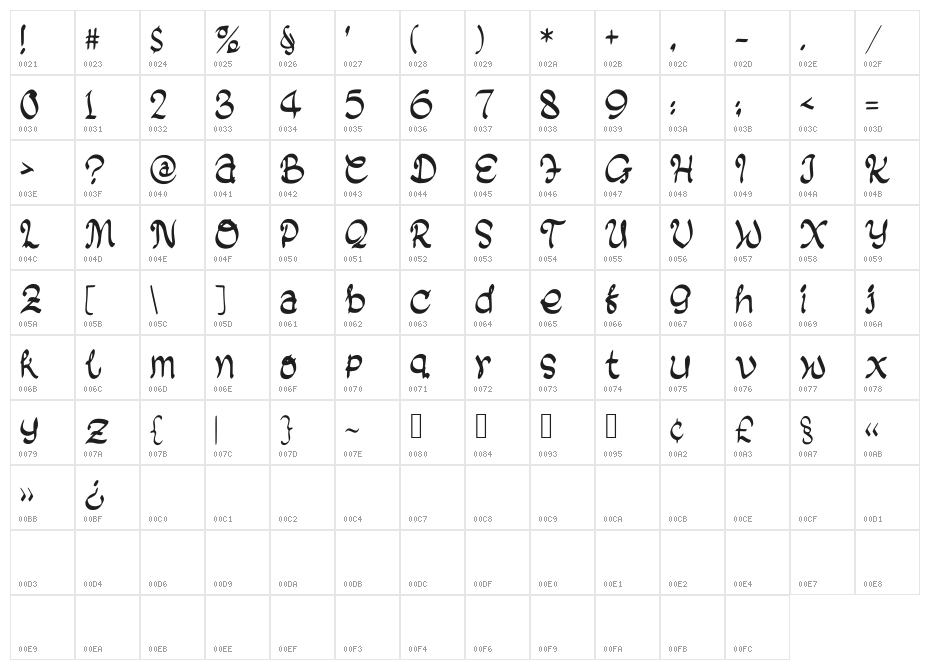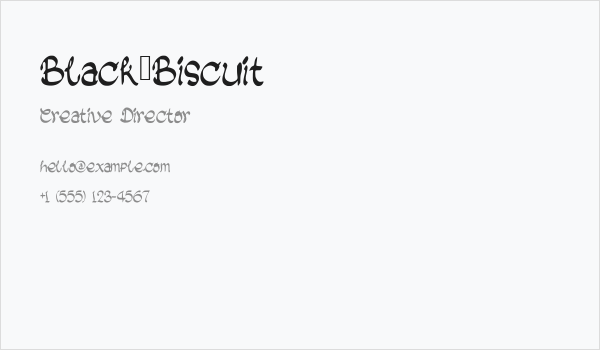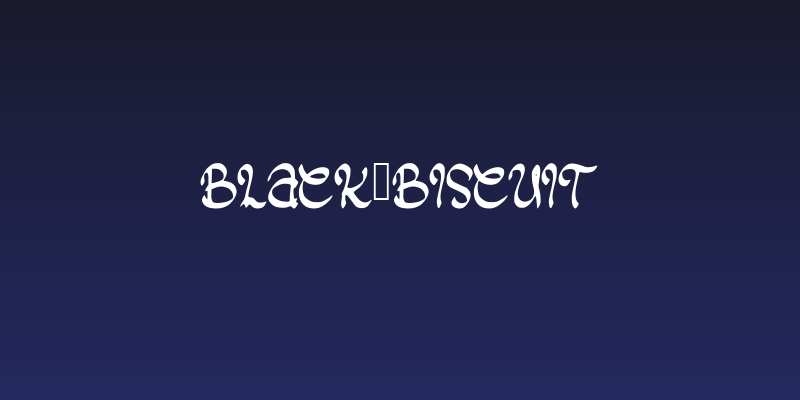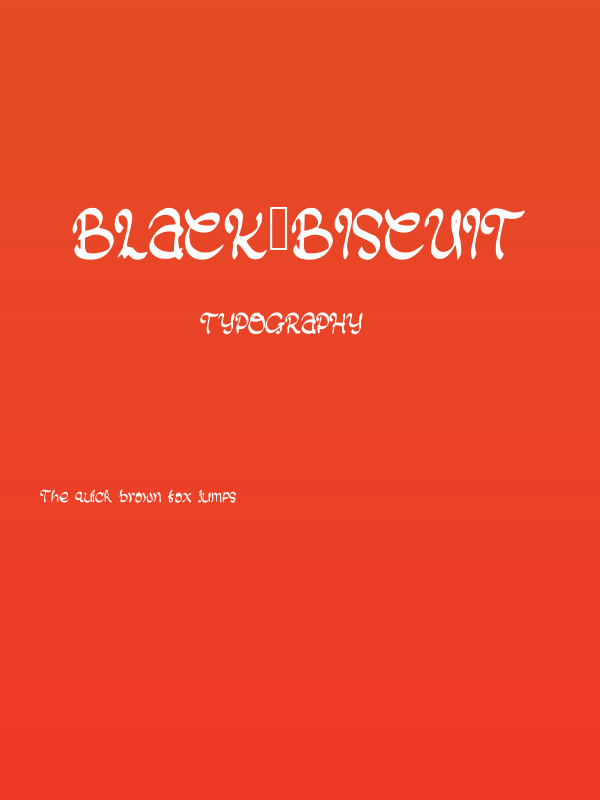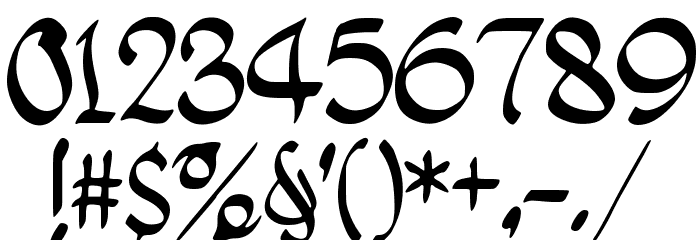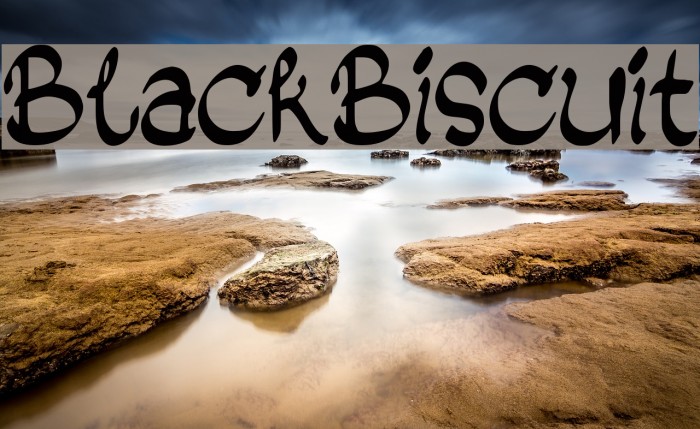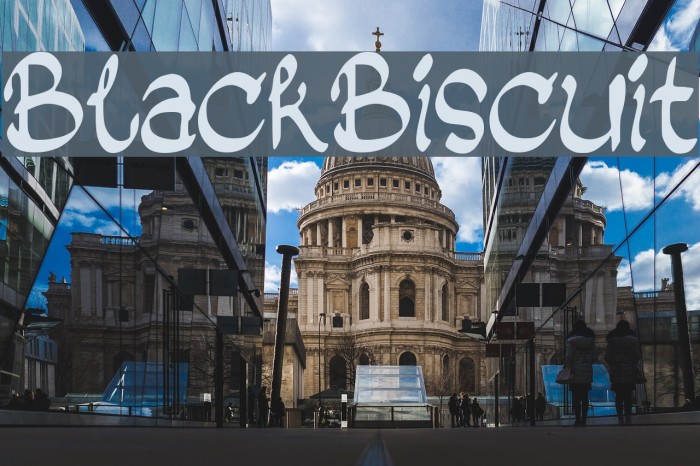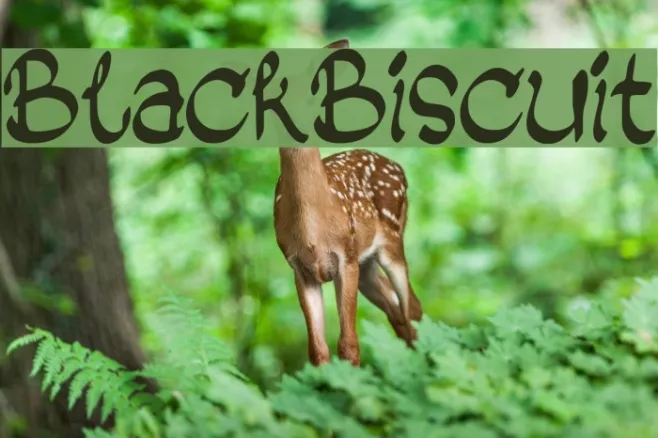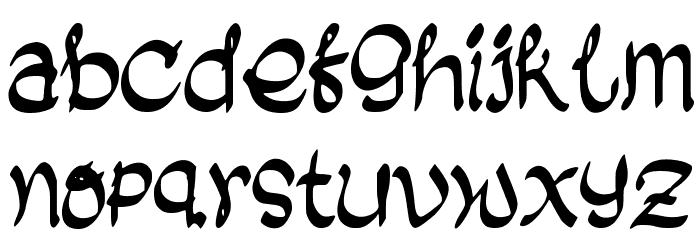
Black_Biscuit Font
Black_Biscuit Description
This font features a bold and dynamic script style with a unique blend of curves and sharp edges. The uppercase letters exhibit a strong presence with their thick strokes and artistic flair, while the lowercase letters maintain a consistent flow with a slightly more delicate touch. Numbers and special characters are crafted with the same boldness, ensuring uniformity across all elements. The font's design is reminiscent of calligraphy, yet it maintains a modern twist that makes it versatile for various creative applications. Its distinctive style is both eye-catching and memorable, making it suitable for projects that require a touch of elegance and creativity.
| Use Case | Logos, Headlines, Invitations |
| Proposed Projects | Ideal for branding, invitations, posters, and creative design projects that require a bold and artistic touch. |